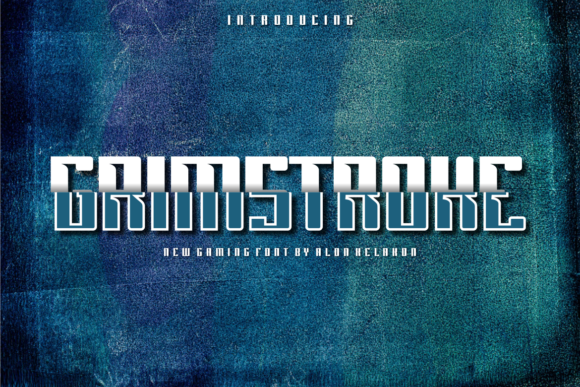
Harness the power of bold typography with Grimstroke, the ultimate display font designed to make your words leap off the screen. Its audacious strokes and unapologetically thick lettering command attention, promising to make your designs unforgettable.
Dive into a world of visual impact, where Grimstroke's carefully crafted characters dance across your designs, captivating your audience with their raw energy. Whether you're crafting logos that demand recognition, unleashing powerful statements on t-shirts, or injecting adrenaline into sports designs, Grimstroke is your weapon of choice.
As versatile as it is striking, Grimstroke effortlessly adapts to a myriad of creative endeavors. Its confident presence shines in headlines, posters, and branding materials, while its unwavering strength lends itself perfectly to packaging and advertisements. No matter the medium, Grimstroke ensures your message resonates with undeniable impact.
With Grimstroke by your side, you'll discover a world of limitless design possibilities. Its bold personality breathes life into your projects, adding an instant touch of drama and intrigue. Unleash your creativity and watch as Grimstroke transforms ordinary designs into captivating masterpieces.
Don't settle for fonts that blend into the background—embrace the bold, the daring, and the unforgettable with Grimstroke. Let your designs roar with confidence and leave an indelible mark on your audience. Seize the opportunity to elevate your designs to new heights with Grimstroke, the font that was born to turn heads.